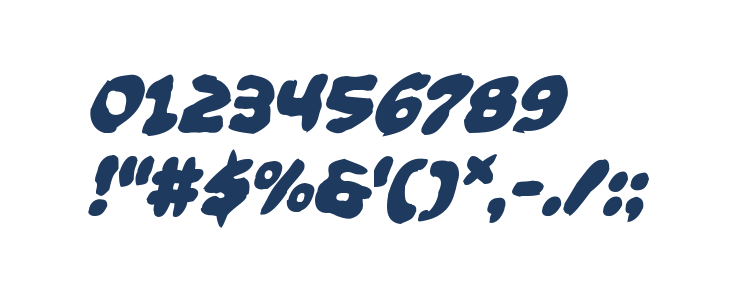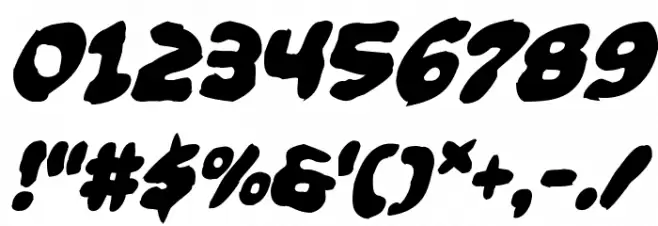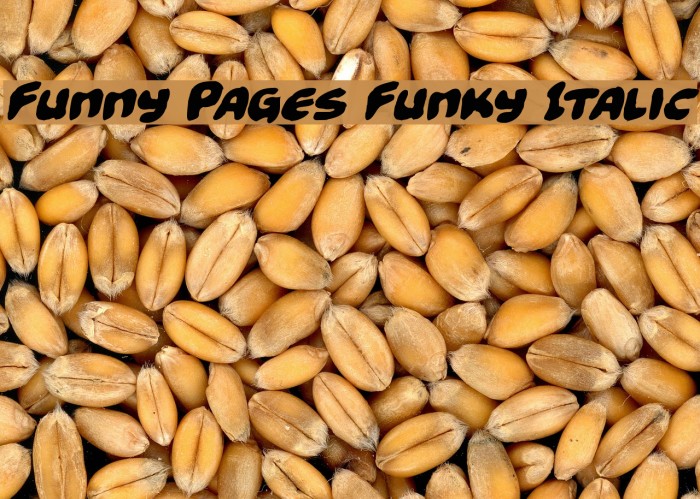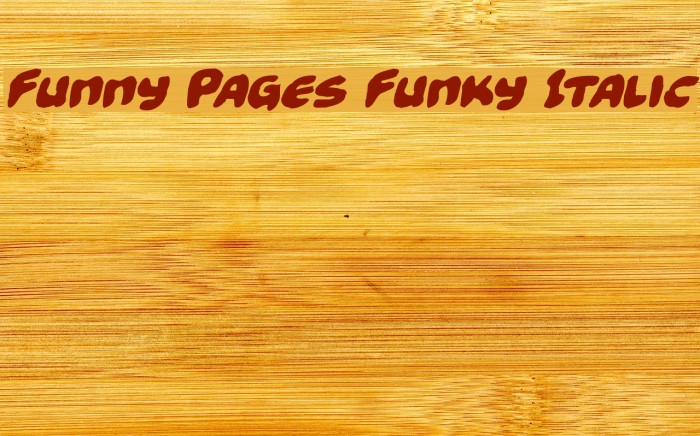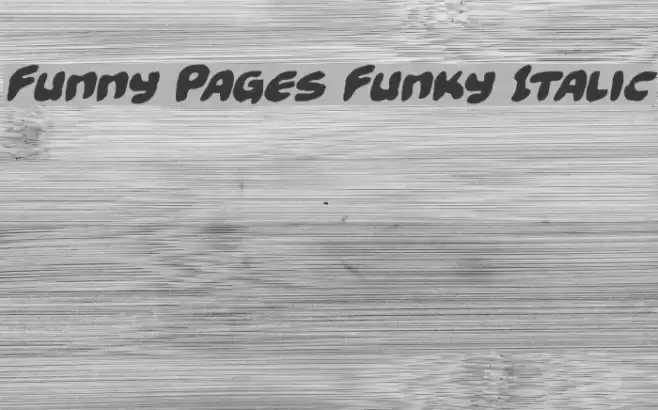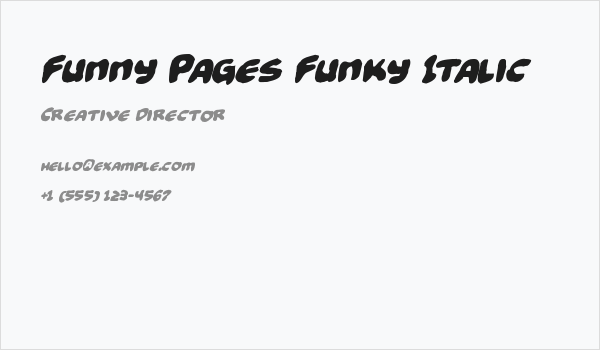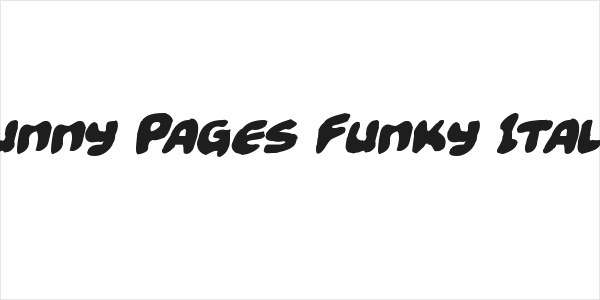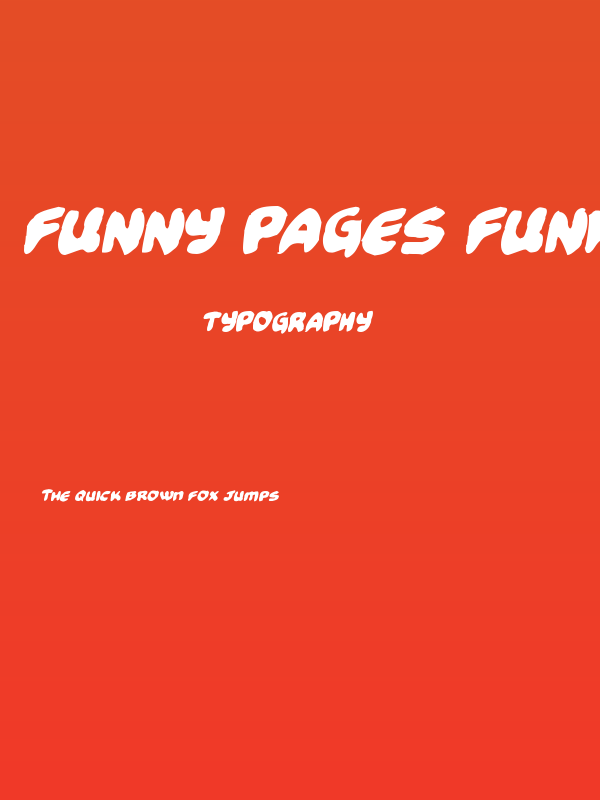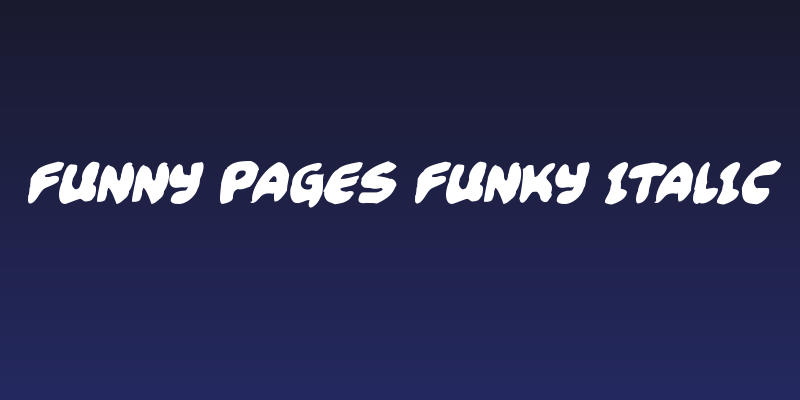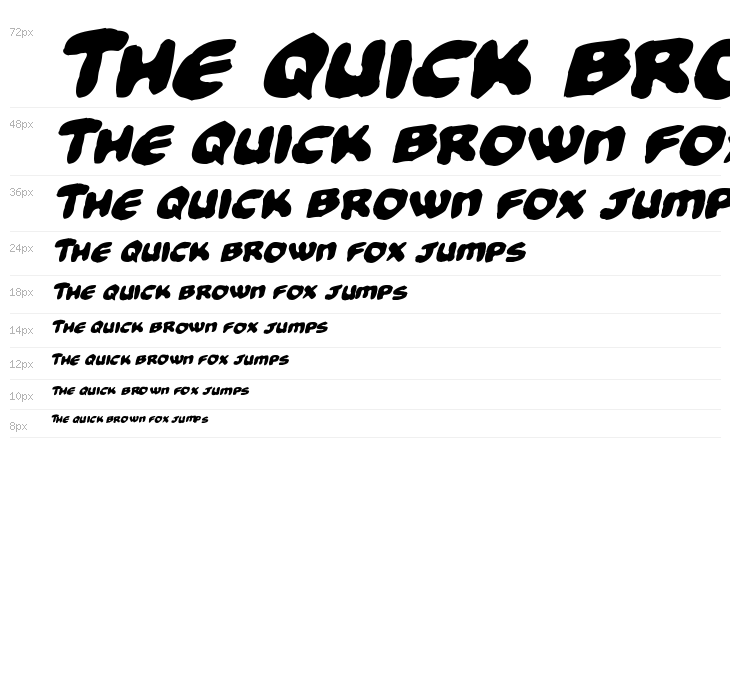
Funny Pages Funky Italic Font
Funny Pages Funky Italic Description
This playful and energetic font features bold, rounded characters with a distinct italic slant, giving it a dynamic and lively appearance. The strokes are thick and consistent, creating a strong visual impact. The letters are slightly irregular, adding a whimsical touch that enhances its funky style. The font maintains a cohesive look across uppercase, lowercase, numbers, and special characters, making it versatile for various creative applications. Its boldness and unique style make it stand out, perfect for projects that require a fun and engaging typeface.
| Overall Style | Funky, Playful, Energetic |
| Proposed Projects | Ideal for comic books, children's books, playful branding, posters, and merchandise designs. |